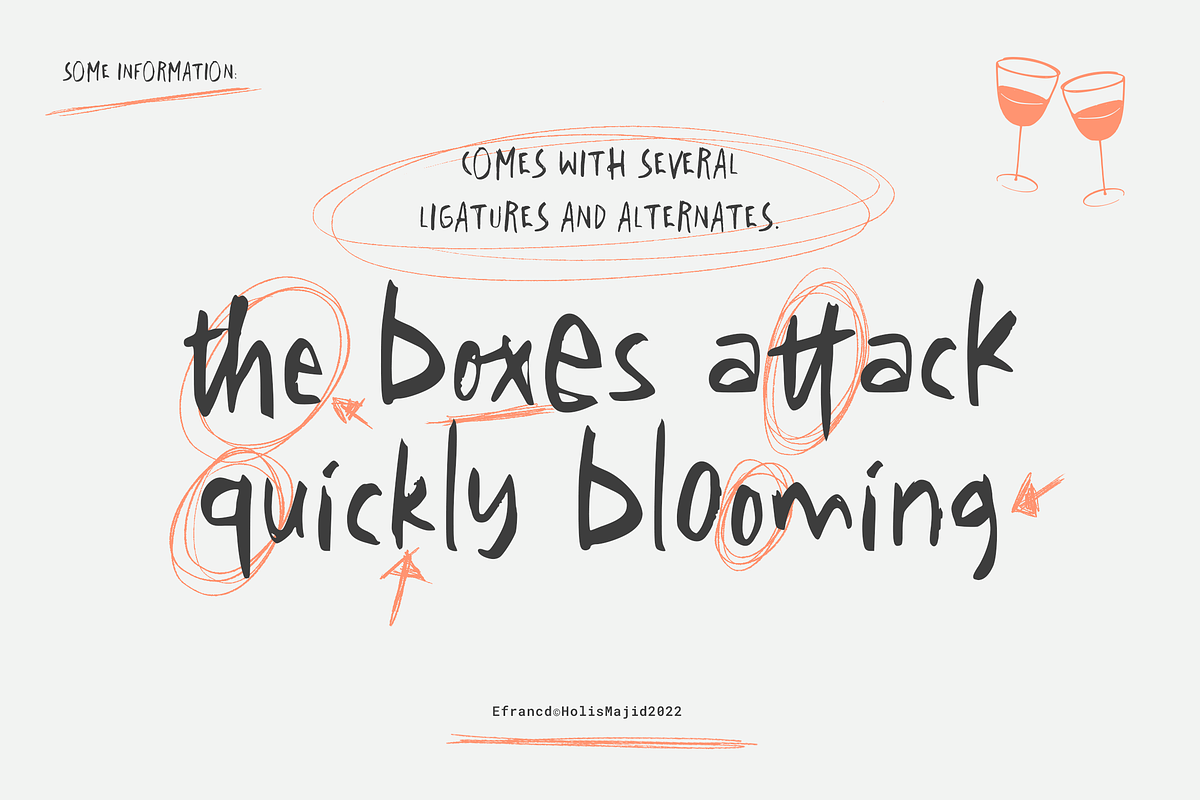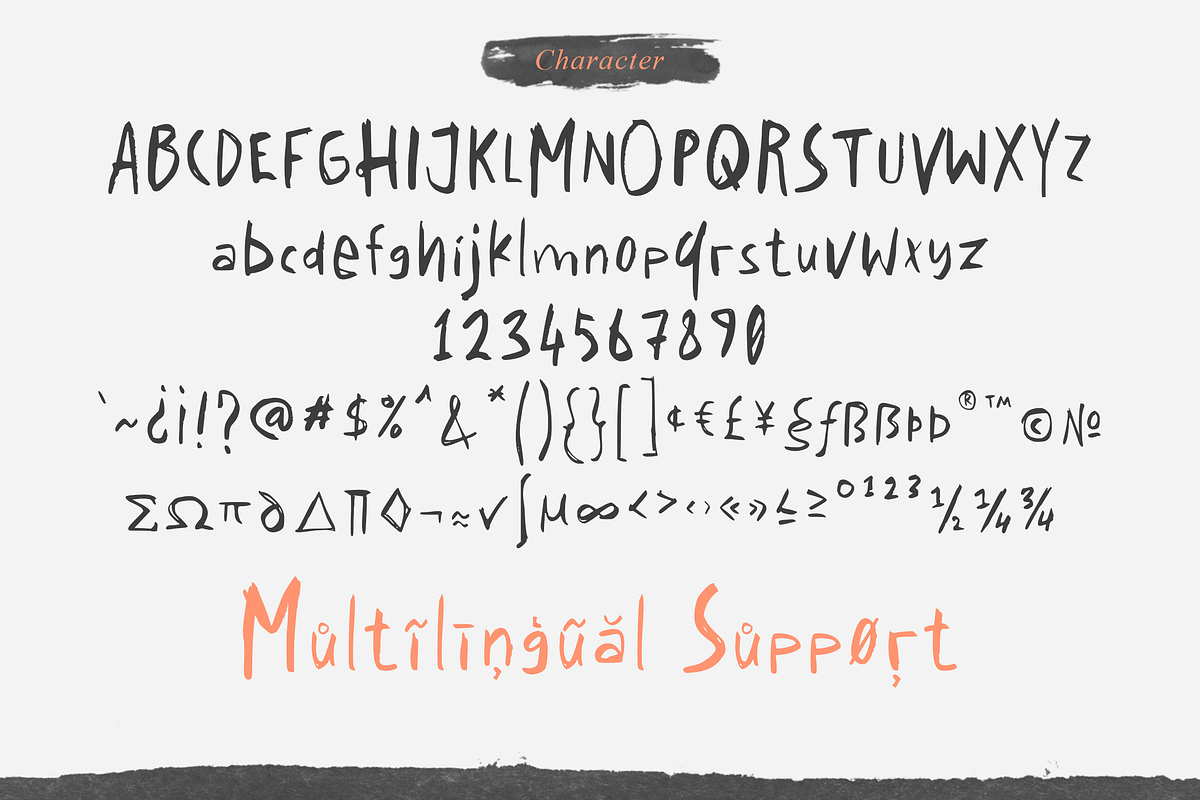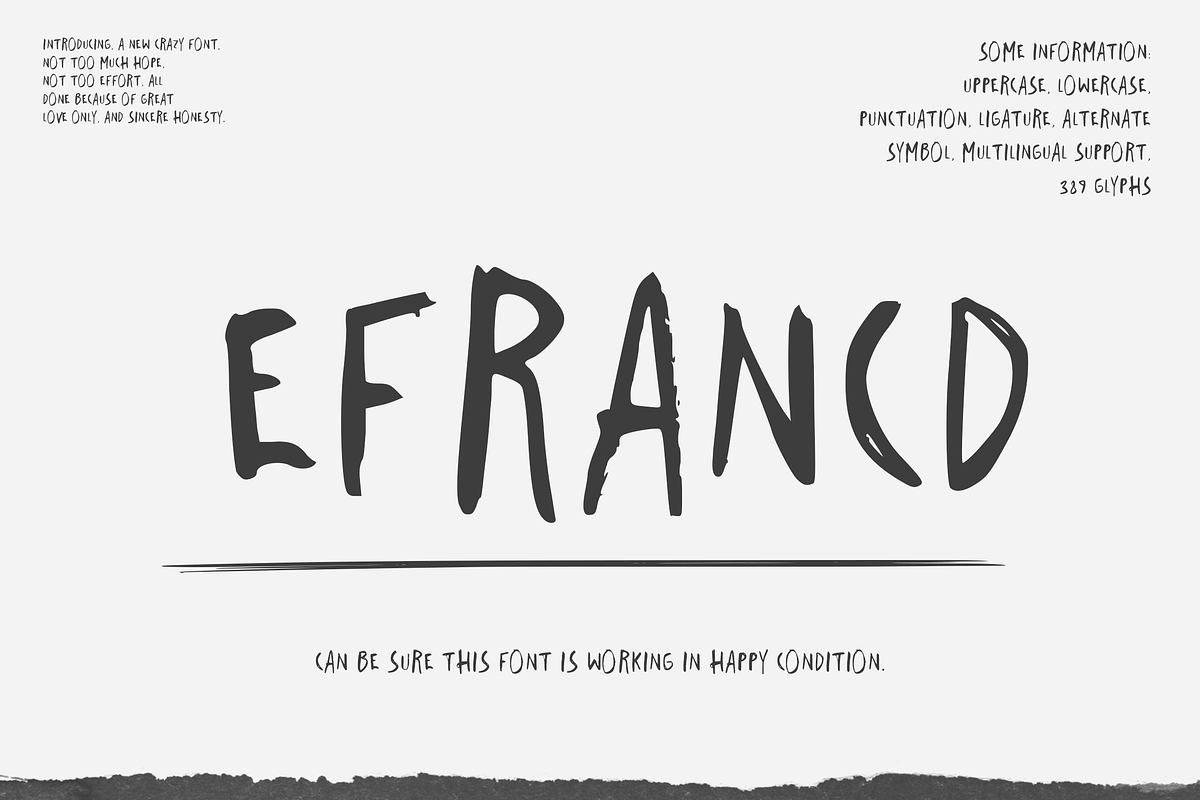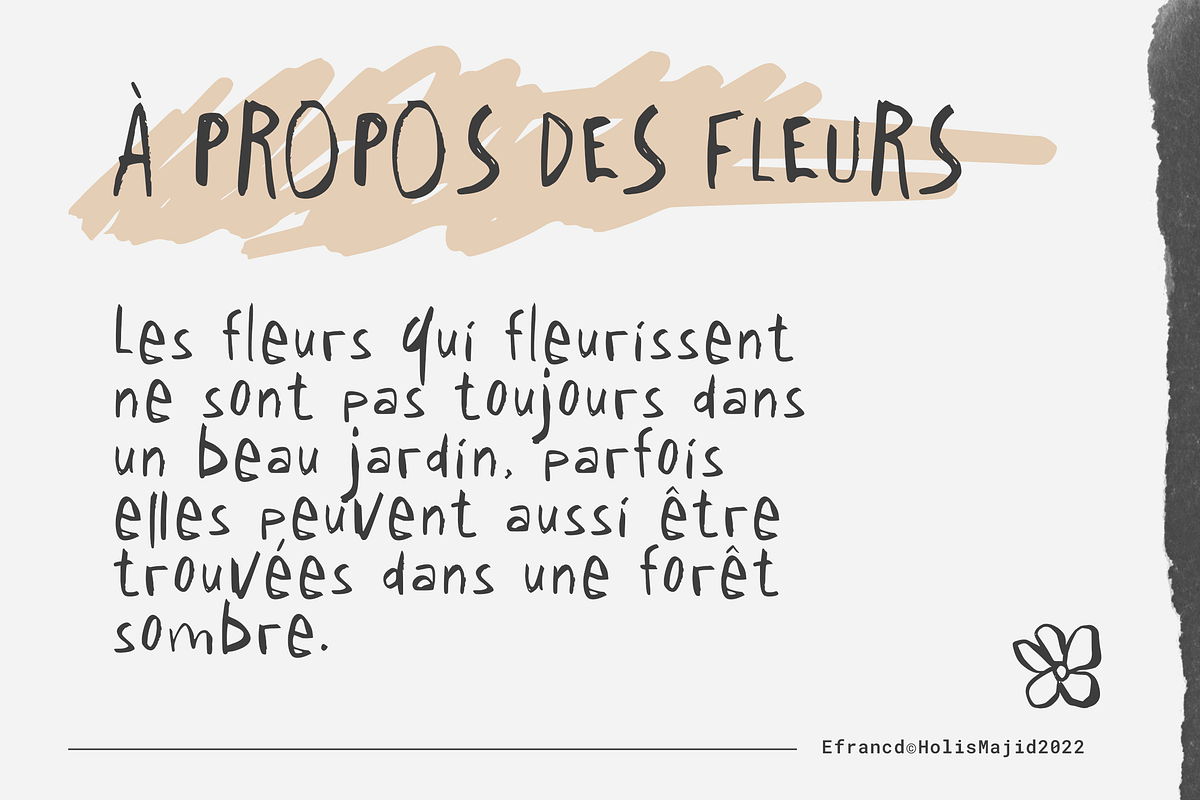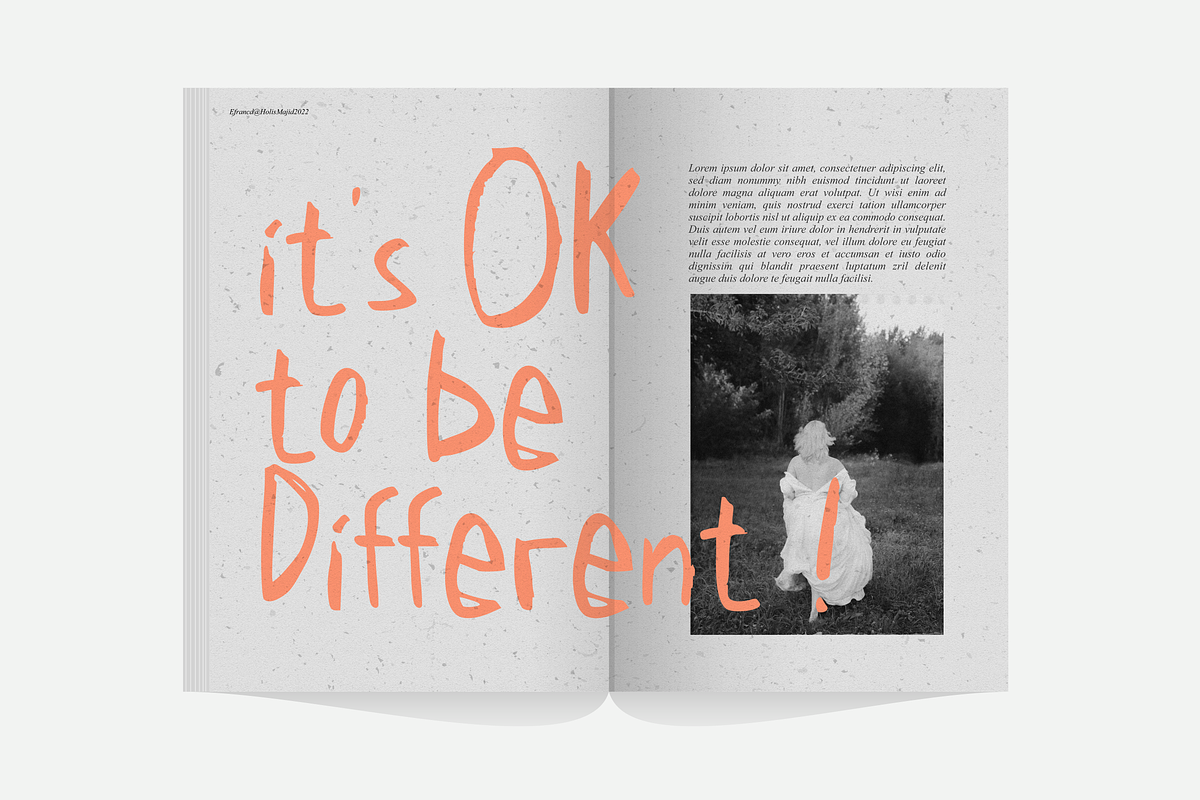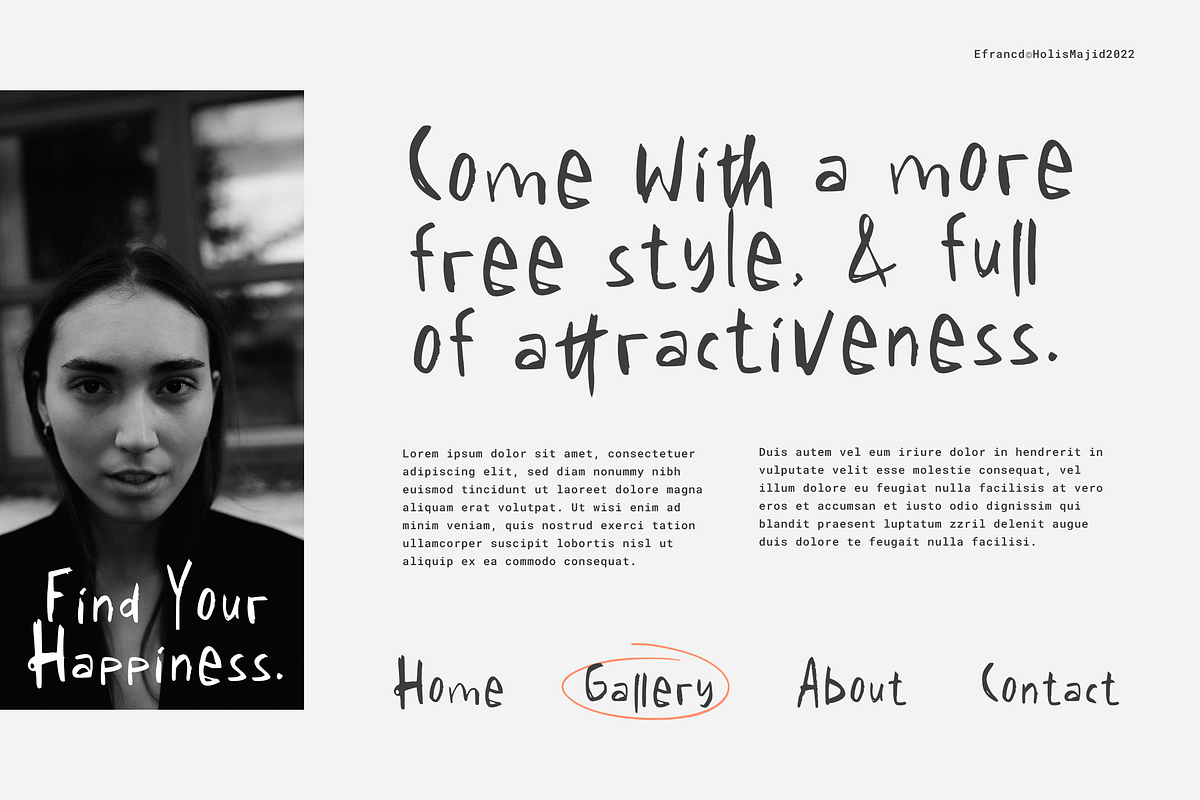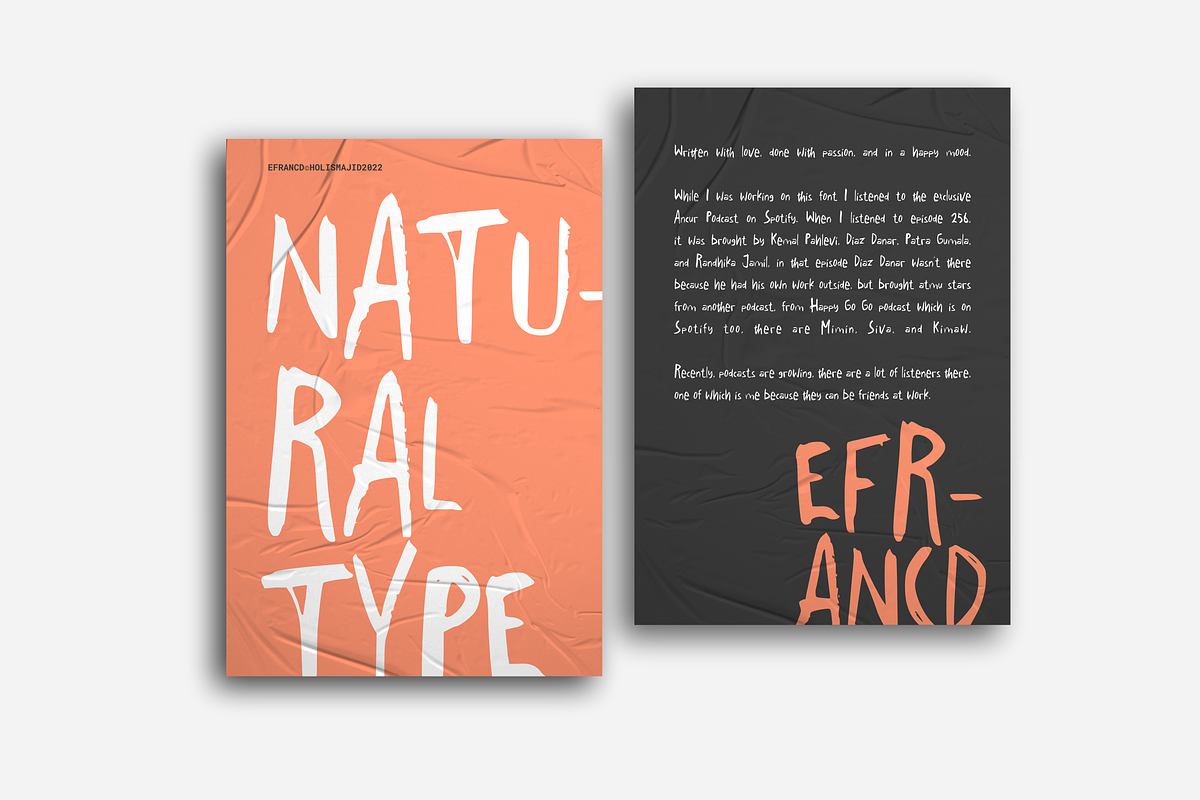
Efrancd Handwriting
Freehand writing made into a font, equipped with uppercase, lowercase, punctuation, ligatures, alternate and several symbols. This handwritten font looks messy and natural.